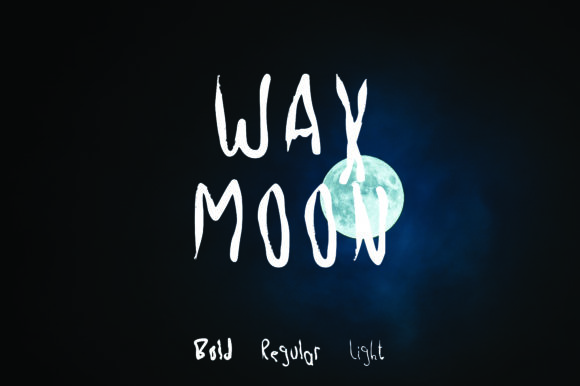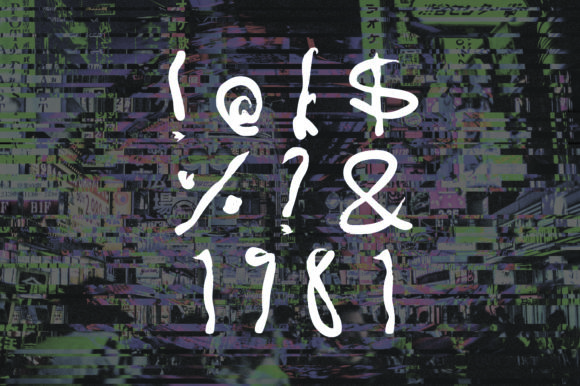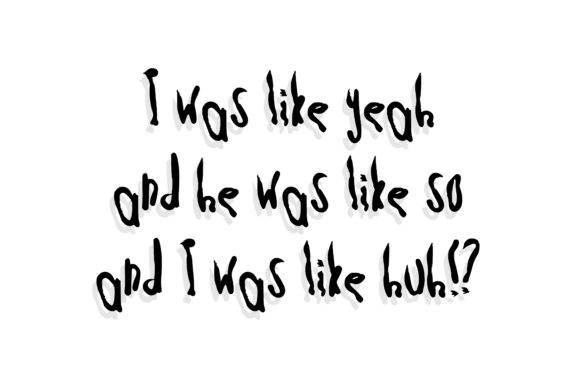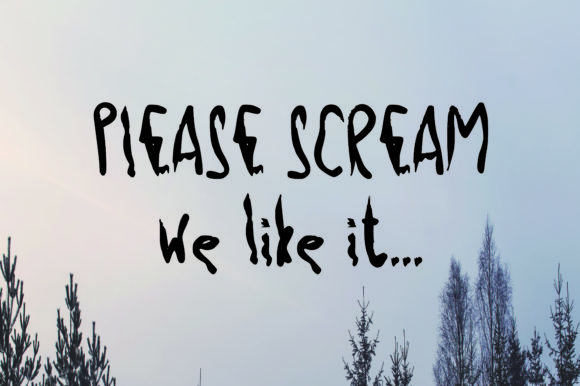
HomeScript FontsWax Moon Font Script Fonts Wax Moon Font FacebookTwitterPinterestWhatsApp Wax Moon Font Poster 2 Wax Moon Font Poster 3 Wax Moon Font Poster 4 About Wax Moon Font Wax Moon is a creepy and spooky midnight-themed font that will not only inspire Halloween lovers. DOWNLOAD NOW People also explored Hello Girl Font Hope Font Secret Recipe British Castilla Font Australia Font Christmas Day out Font Whillys Font Ferissa Font Perfecto Font 159 0 TagsWax Moon Font Previous articleAbsolute Pink FontNext articleWizard Font LEAVE A REPLY Cancel reply Comment: Please enter your comment! Name:* Please enter your name here Email:* You have entered an incorrect email address! Please enter your email address here Website: Save my name, email, and website in this browser for the next time I comment. Personal Use Free Imelda Personal Use Free Read more about this font Lemon Milk Font Personal Use Free Read more about this font Farmgarden Personal Use Free Read more about this font Vivacious Personal Use Free Read more about this font BLOG Free Fonts Risk: Why Free Fonts Can Be Dangerous for Designers Free Fonts Risk: Why Free Fonts Can Be Dangerous for Designers Using free fonts is a common practice in web and graphic design. However, the... The 10 Best Handwriting Fonts to Add Personality to Your Designs To increase your work productivity, choose the most readable fonts. Where to Buy American Fonts Online in 2024